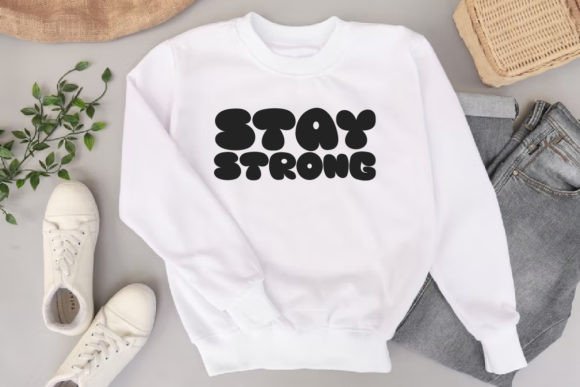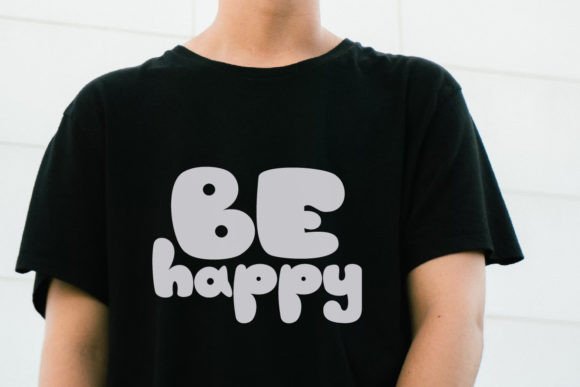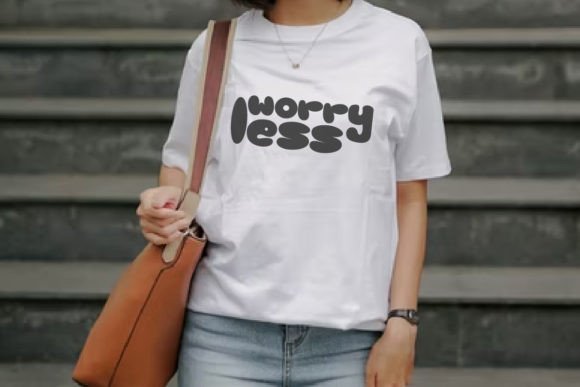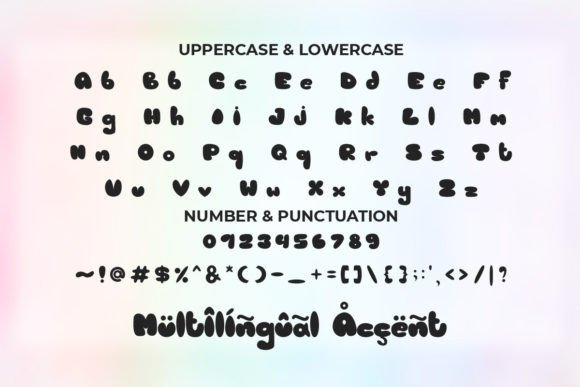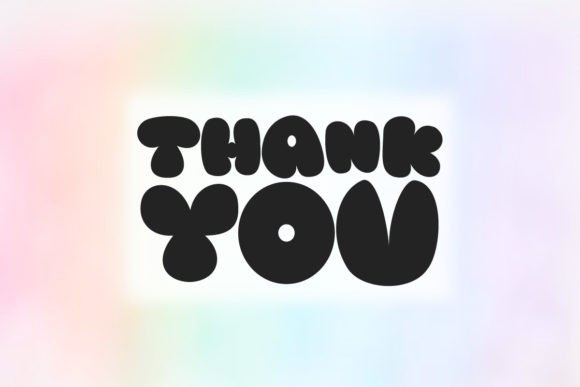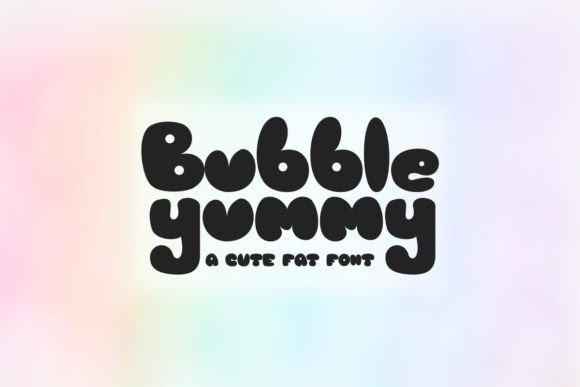
Bubble Yummy Font: The Ultimate Cute Retro Font for Designers and Crafters
Are you looking for a font that can add a touch of uniqueness and fun to your designs? Look no further than the Bubble Yummy font! This adorable retro font is perfect for a wide range of design projects, from labels and quotes to posters, DIY projects, and more. In this article, we’ll explore the features and benefits of the Bubble Yummy font, and show you how it can elevate your designs to the next level.
What is Bubble Yummy Font?
Bubble Yummy is a cute retro font that is designed to bring a playful and whimsical touch to your designs. Its unique and fun style makes it perfect for designers and crafters who want to add a personal touch to their work. Whether you’re creating labels, quotes, posters, or any other type of design, Bubble Yummy is sure to make your work stand out.
Features of Bubble Yummy Font
So, what makes Bubble Yummy font so special? Here are just a few of its key features:
- Cute and Retro Style: Bubble Yummy font has a unique and adorable retro style that is sure to capture the attention of your audience.
- Versatile: This font is perfect for a wide range of design projects, from labels and quotes to posters, DIY projects, and more.
- High-Quality: This font is designed with high-quality and clear lines, making it perfect for printing and digital use.
Uses of Bubble Yummy Font
So, what can you use Bubble Yummy font for? The possibilities are endless! Here are just a few ideas to get you started:
- Labels: Use Bubble Yummy font to create cute and colorful labels for your products, gifts, or DIY projects.
- Quotes: Add a touch of whimsy to your quotes and sayings with Bubble Yummy font.
- Posters: Create eye-catching posters for your business, event, or promotion with Bubble Yummy font.
- DIY Projects: Use Bubble Yummy font to add a personal touch to your DIY projects, such as scrapbooking, card making, and more.
- Branding: Use Bubble Yummy font to create a unique and memorable brand identity for your business.
- Packaging: Add a touch of personality to your packaging with Bubble Yummy font.
- Greeting Cards: Create adorable greeting cards for any occasion with Bubble Yummy font.
- Websites: Use Bubble Yummy font to add a playful touch to your website or blog.
- Photos: Add a caption or quote to your photos with Bubble Yummy font.
- Photography Overlays: Use Bubble Yummy font to create beautiful overlays for your photos.
- Signs: Create eye-catching signs for your business, event, or promotion with Bubble Yummy font.
- Window Art: Use Bubble Yummy font to create beautiful window art for your business or event.
- Scrapbooking: Add a touch of whimsy to your scrapbooking projects with Bubble Yummy font.
- Tags: Use Bubble Yummy font to create cute and colorful tags for your gifts, products, or DIY projects.
Why Choose Bubble Yummy Font?
So, why should you choose Bubble Yummy font for your design projects? Here are just a few reasons:
- Unique and Fun Style: Bubble Yummy font has a unique and fun style that is sure to capture the attention of your audience.
- Versatile: This font is perfect for a wide range of design projects, making it a great addition to your font collection.
- High-Quality: This font is designed with high-quality and clear lines, making it perfect for printing and digital use.
In conclusion, Bubble Yummy font is a cute retro font that is perfect for designers and crafters who want to add a touch of uniqueness and fun to their designs. With its versatile style and wide range of uses, Bubble Yummy font is sure to become a favorite in your font collection. Whether you’re creating labels, quotes, posters, or any other type of design, Bubble Yummy font is sure to make your work stand out.